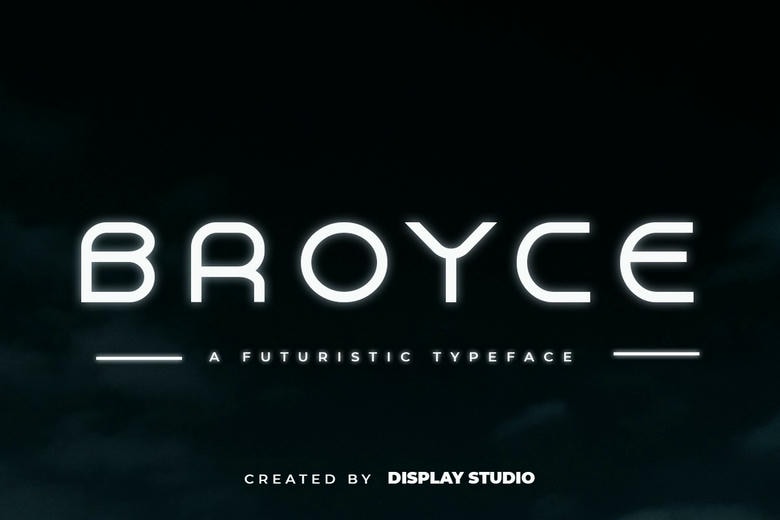
Broyce Font
Broyce is a cool and neat display font. Add this modern and adaptable font to your favorite creations and notice how easily they stand out. This design would also make for perfect use as Logotype, Branding Design, Logo Design, Digital Lettering Arts T-Shirt, Apparel Poster Magazine Signs Advertising Design and any other branding related projects.
Broyce Display Font